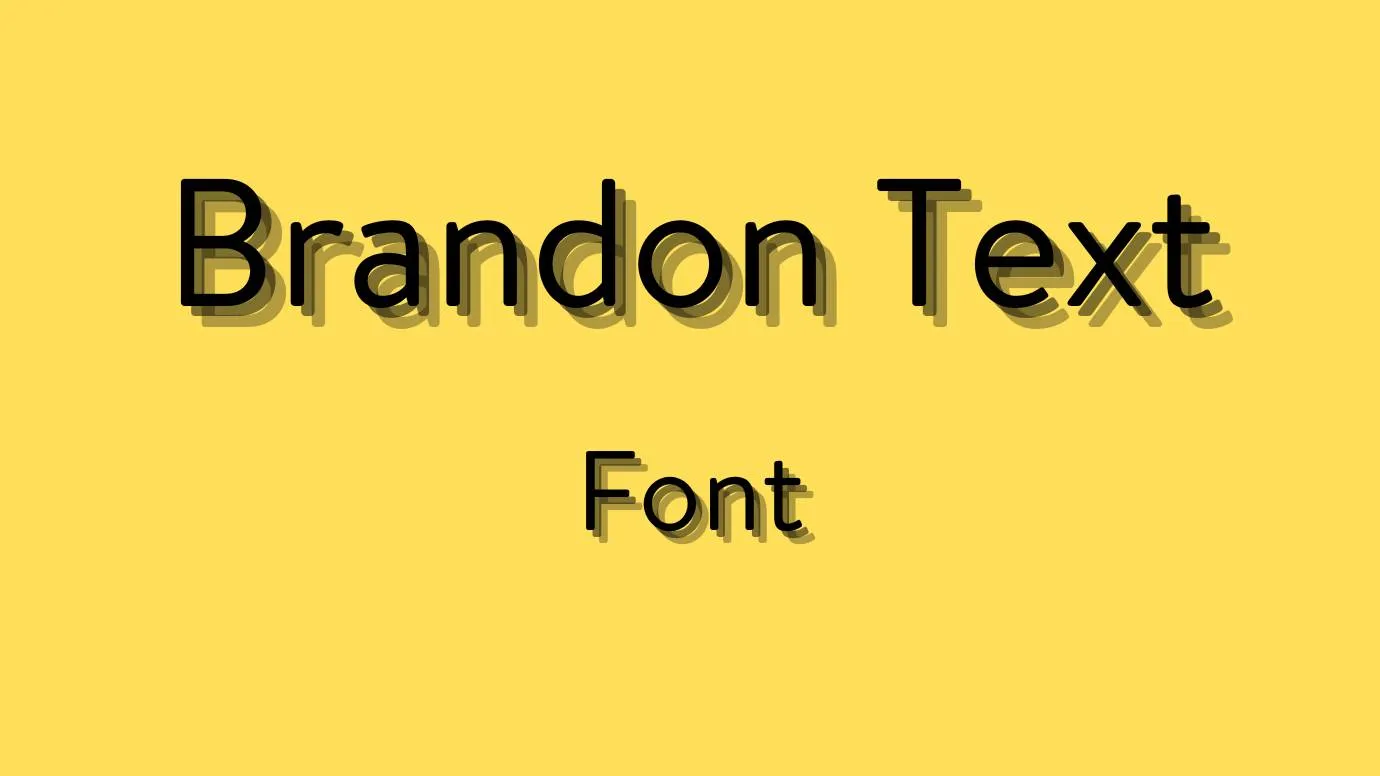
Brandon Text is a member of the famous Brandon Grotesque typeface family. This sans-serif typeface was designed by Hannes von Döhren. He released this typeface in 2012.
Brandon Text Font Family
DesignerHannes von Döhren